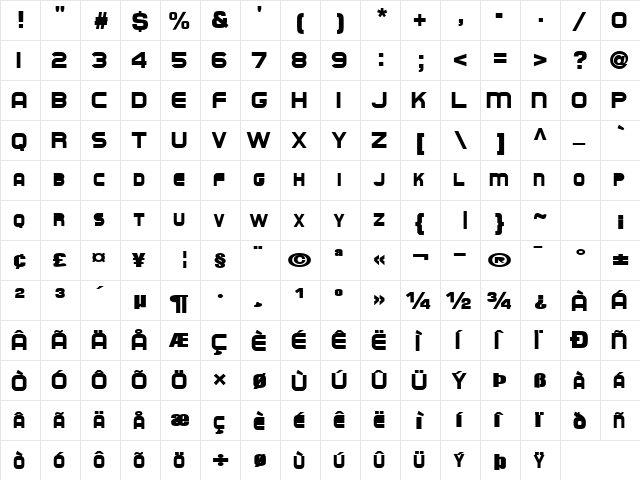
BurningFactsText79 Bold
Design Context for BurningFactsText79 Typeface
BurningFactsText79 takes a measured approach to typography — its balanced proportions and neutral character make it a reliable workhorse for both digital and print work. Its bold stroke weight gives it real presence on the page.